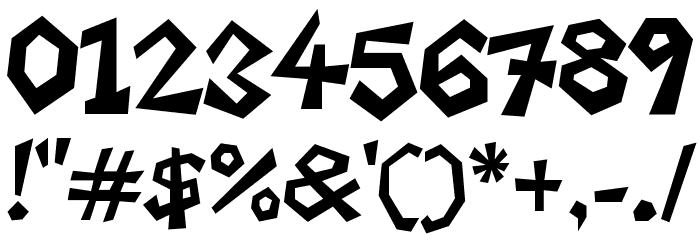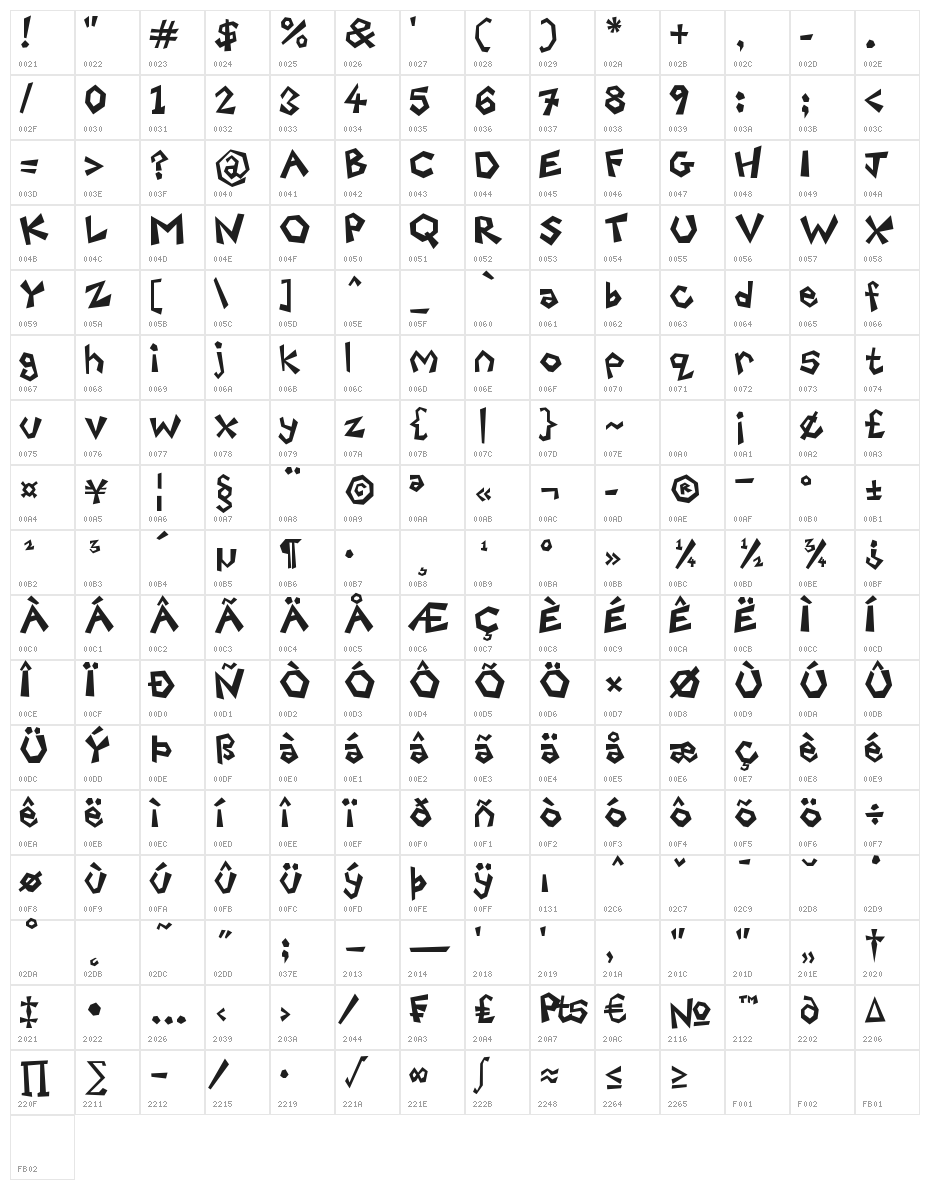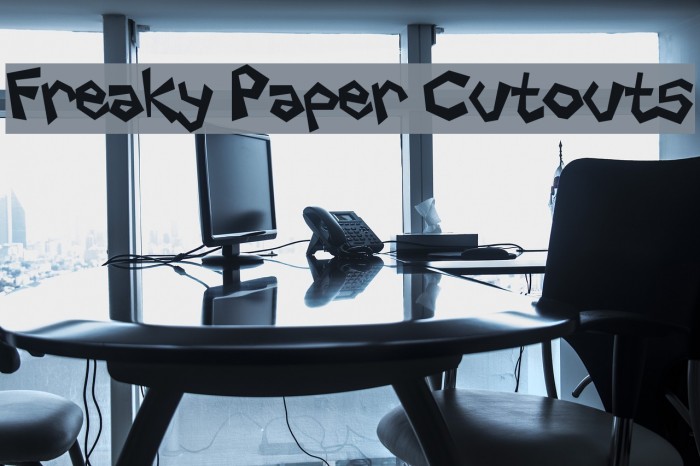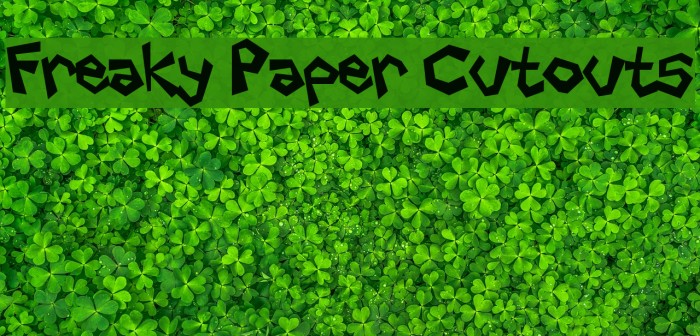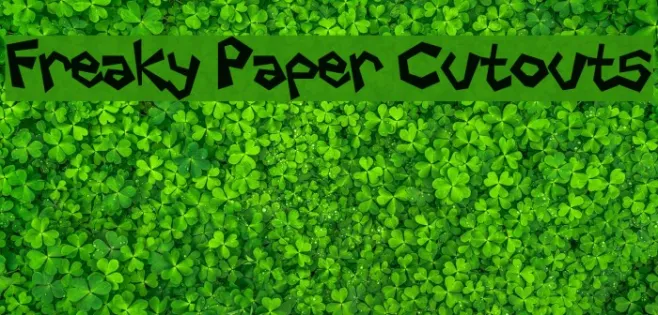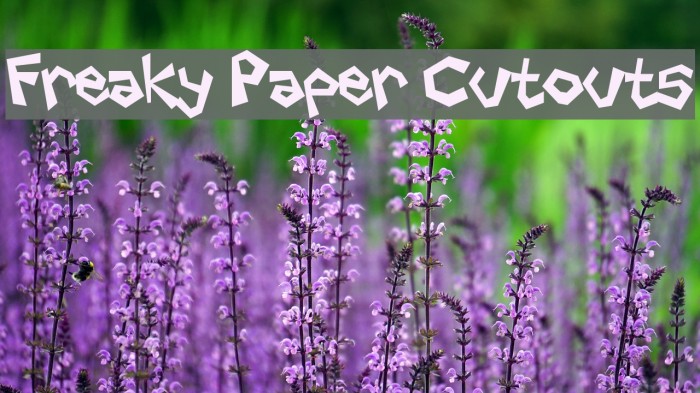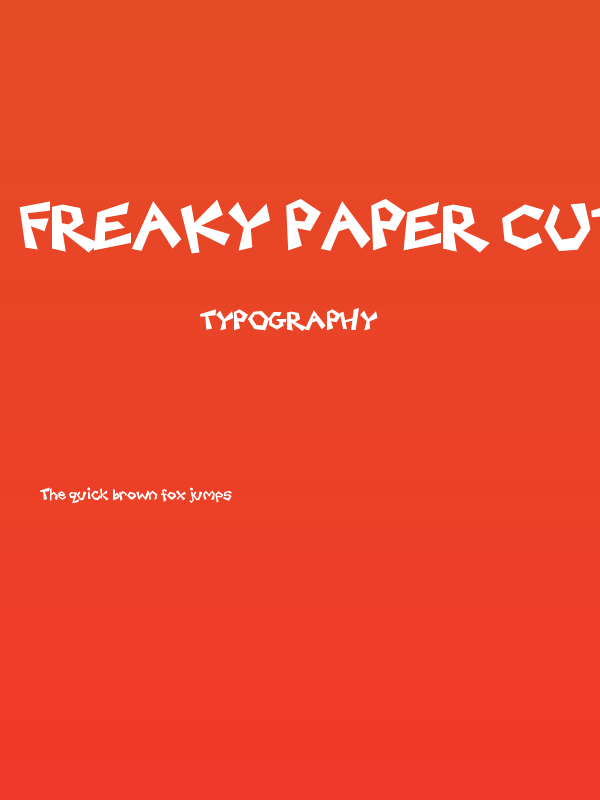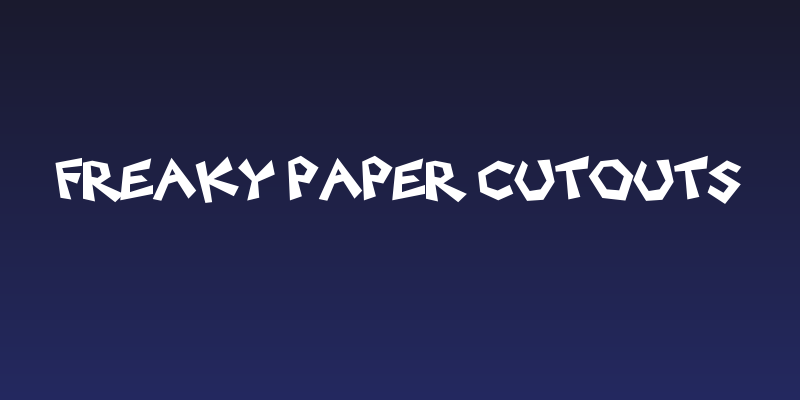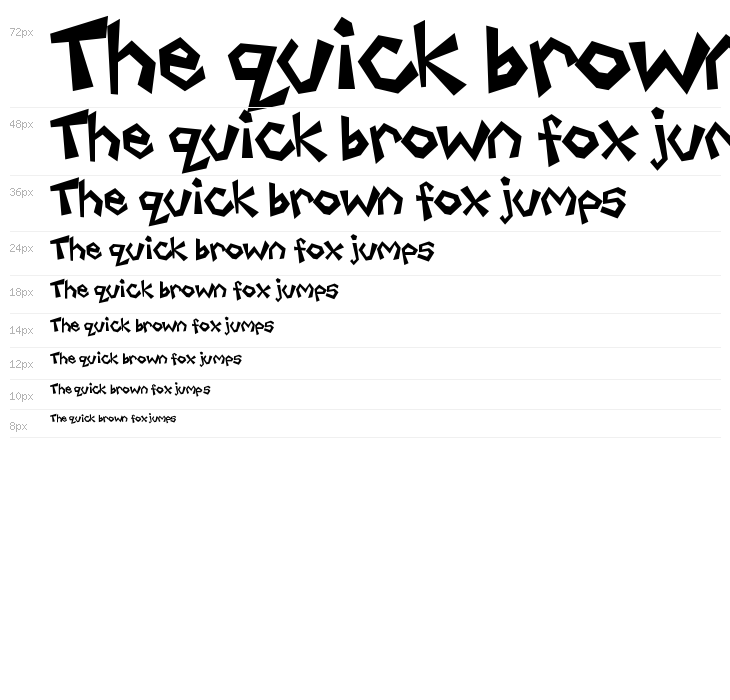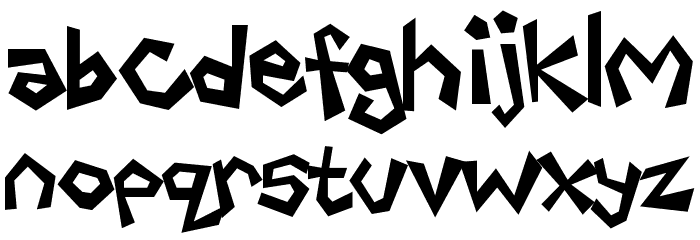
Freaky Paper Cutouts Font
Freaky Paper Cutouts Description
This font features a playful and edgy design, reminiscent of paper cutouts with irregular, jagged edges. The characters have a bold and dynamic appearance, creating a sense of movement and energy. Each letter is uniquely crafted, giving the font a handmade, artistic feel. The uppercase and lowercase letters maintain a consistent style, while the numbers and special characters complement the overall design. This font is perfect for projects that require a fun and unconventional look, adding a touch of creativity and whimsy.
| Proposed Projects | Ideal for children's book covers, creative posters, Halloween-themed designs, and quirky branding materials. |